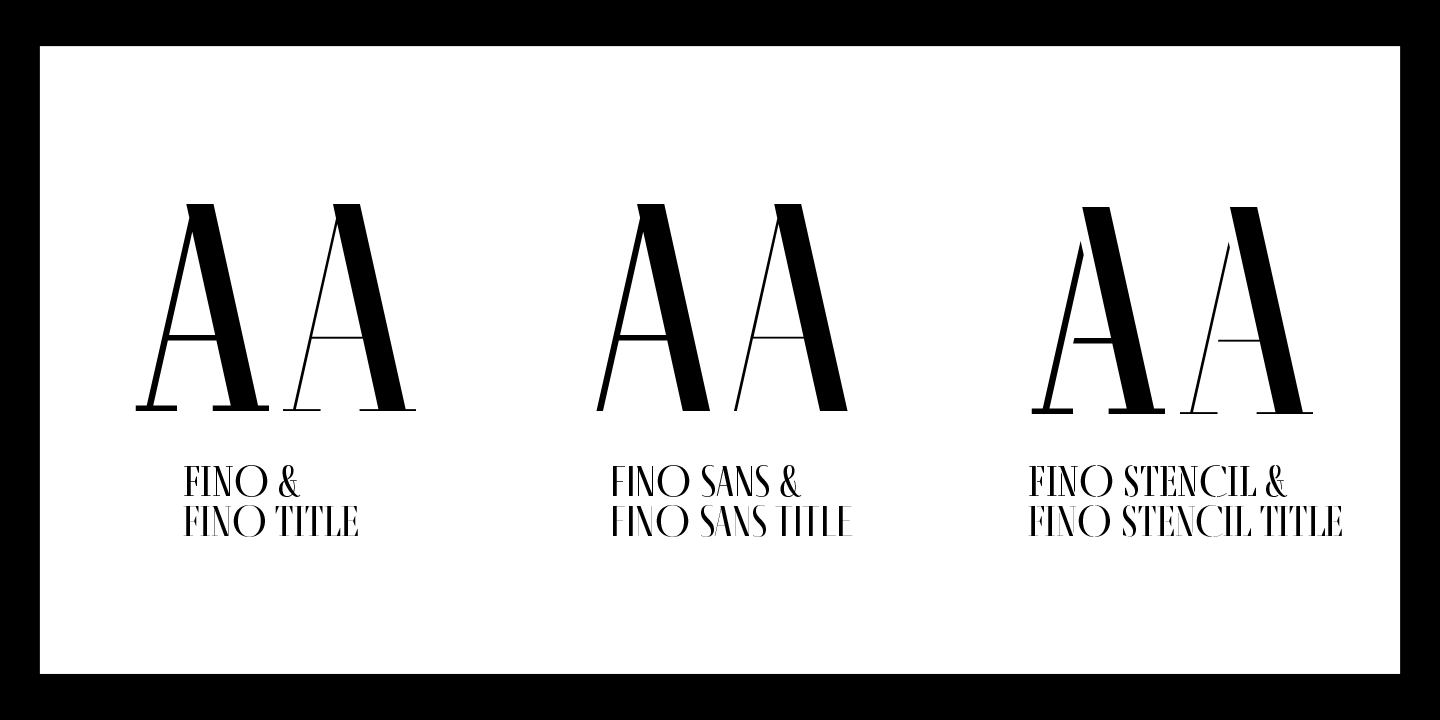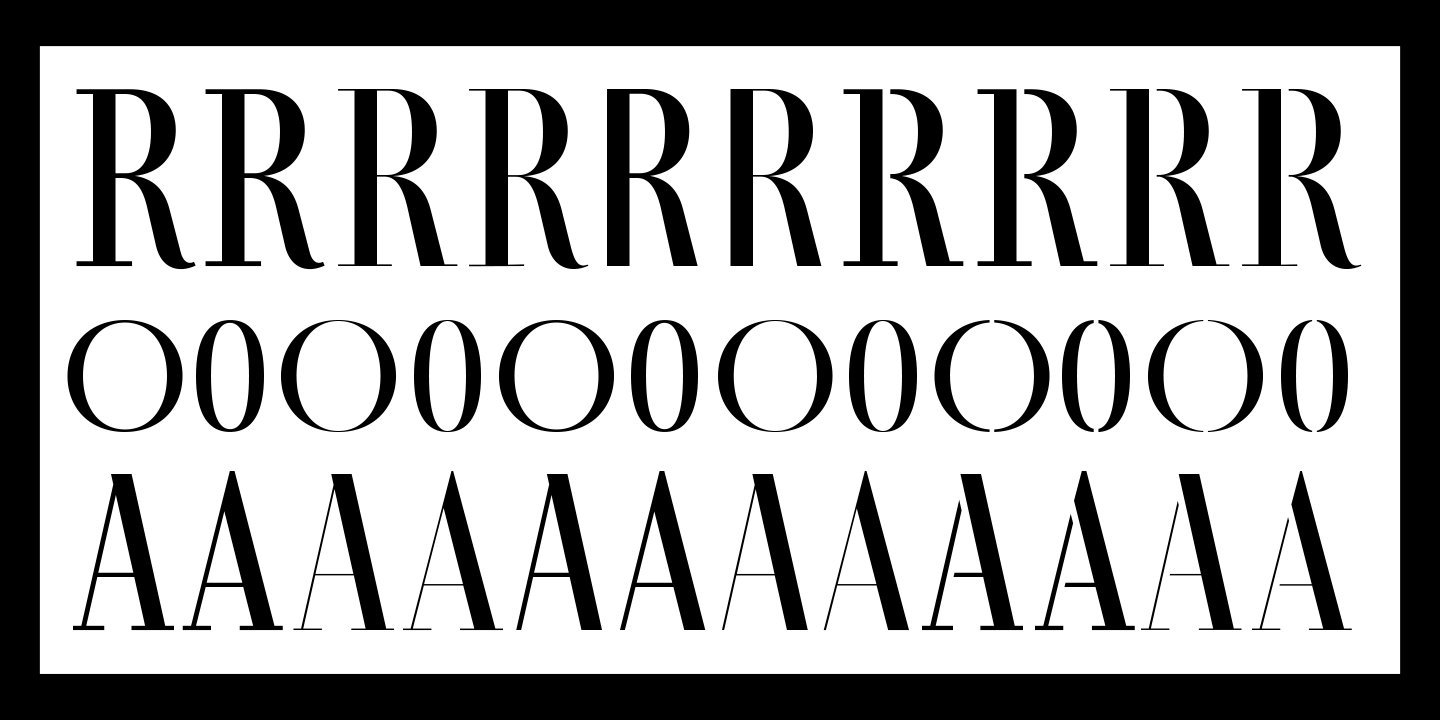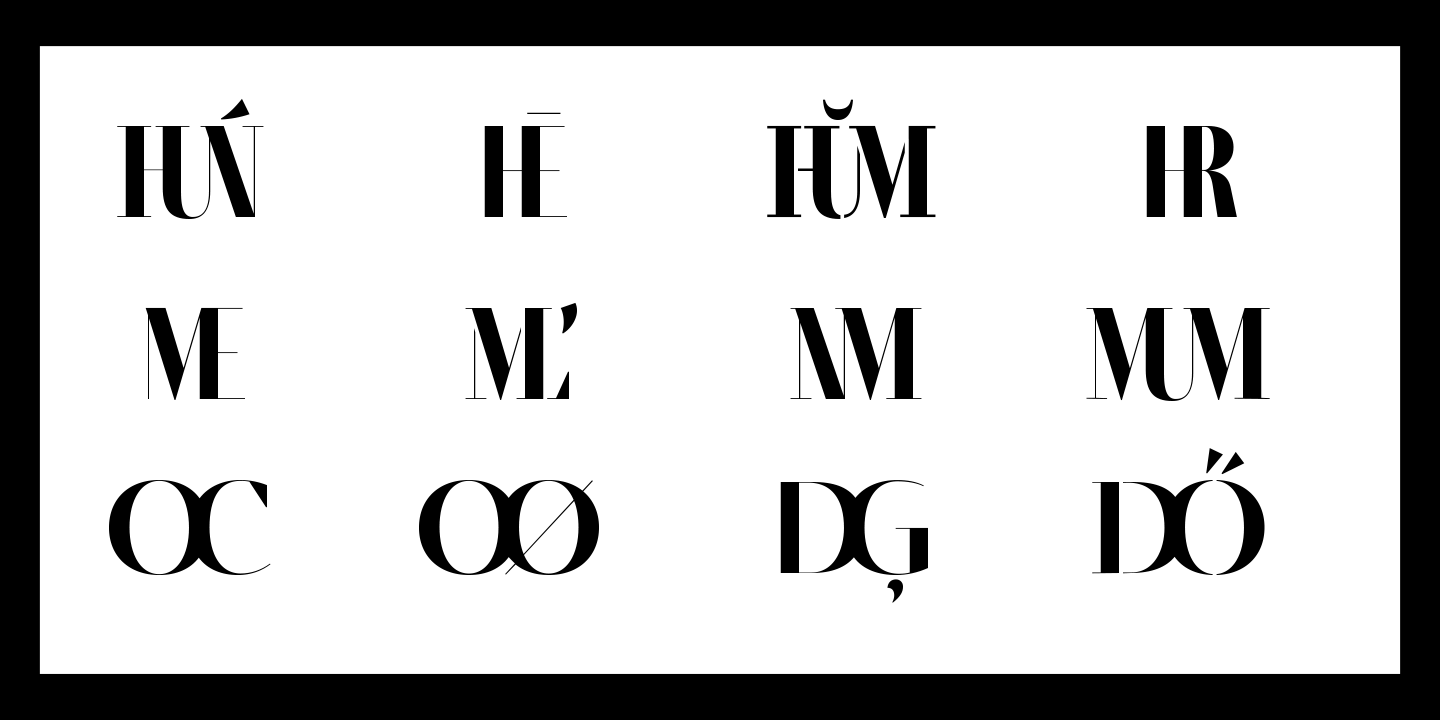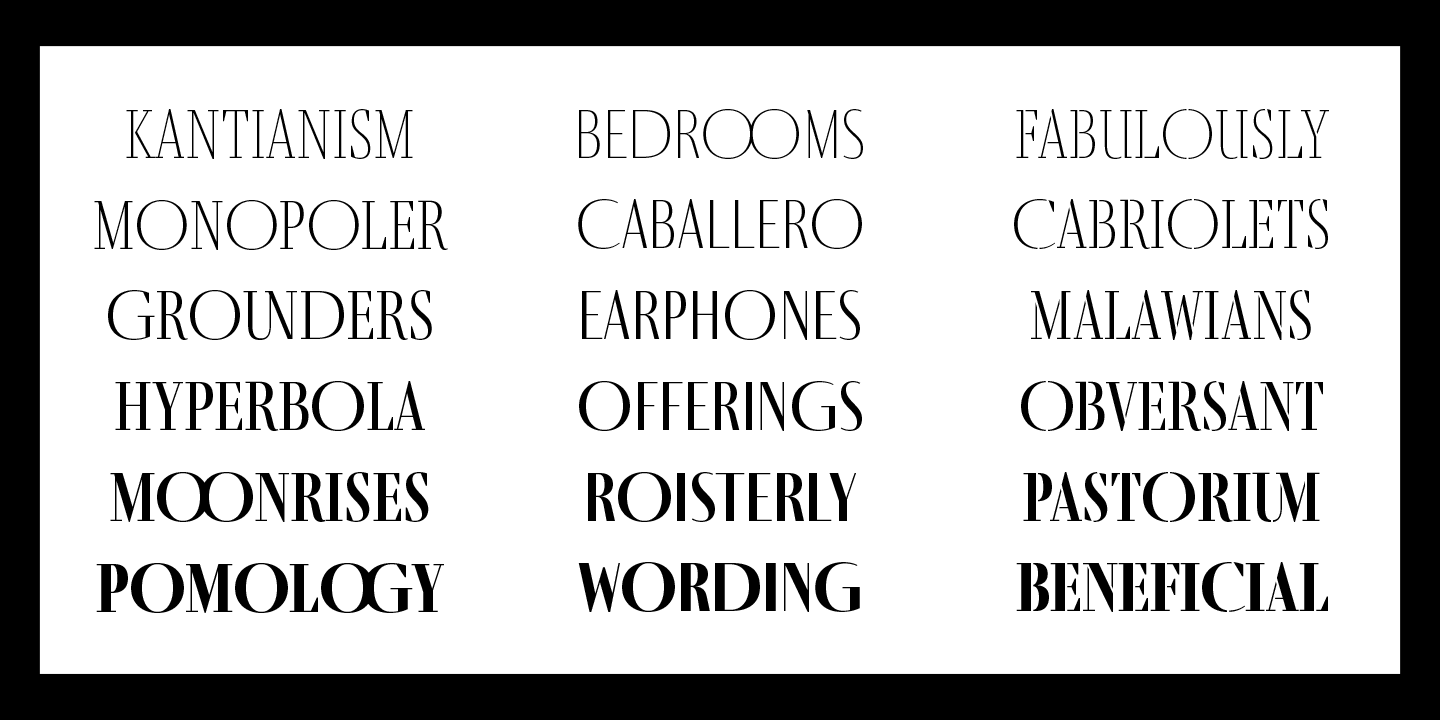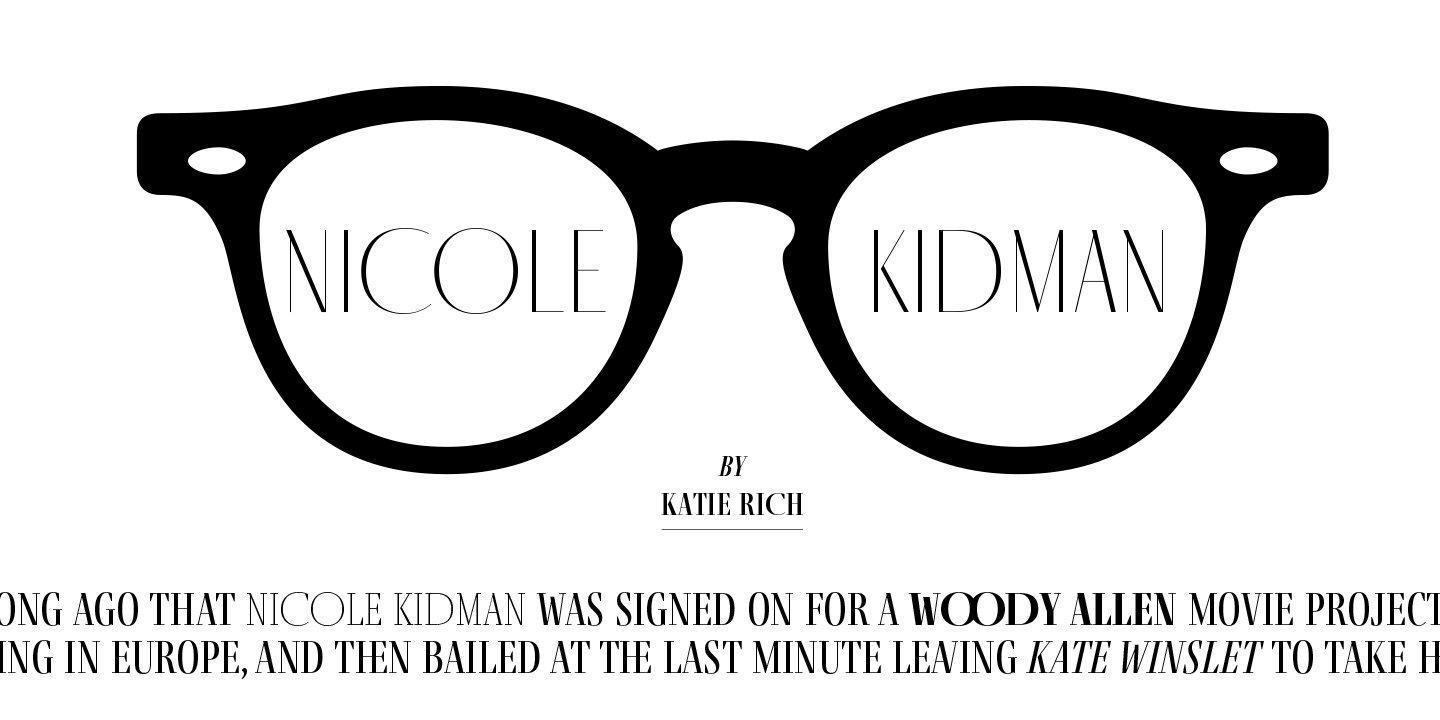
Tall, stately, and refined, with a showy contrast between thick and thin, a certain kind of titling Didone has become synonymous with fashion. Ermin Međedović’s latest type system amplifies the most theatrical aspects of this genre while bringing an uncommon flexibility of style and variation to any type palette — particularly those required for editorial design. Fino Sans is a Rational (or Modern) display serif with sharp details. Its fairly Title proportions produce a regular beat of bold stems at frequent intervals. One can add an unexpected twist to this plot line by introducing the alternate ‘C, D, G, O, and Q’ (found in the uppercase); these replace the standard, Title oval shapes with big, full, show-stopping round ones. Other alternate forms, along with a grand ensemble cast of ligatures, lets the director continually flip the script. This stage is set in three acts: Fino Sans, and Fino Sans Stencil. Each of these offer six weights and italics, and each actor is comfortable speaking any Latin-based language, from standard Hollywood English to the many accents of Eastern Europe. Finally, every style comes in two optical sizes, with Title having the finest hairlines for the biggest parts. This lets you put Fino Sans to work in a variety of productions, from short texts (24pt–48pt settings) to epic titles. The complete Fino Sans family, along with our entire catalogue, has been optimised for today’s varied screen uses. All these talents let Fino Sans perform a range of roles far broader than your typical Bodoni or Didot.